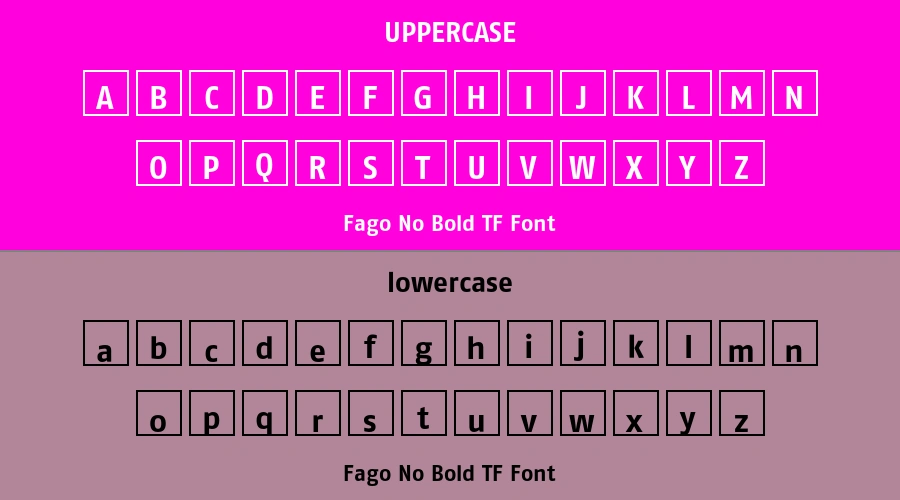
About Fago No Bold TF Font
Fago No Bold TF Font represents a sophisticated approach to type design, balancing dramatic weight with personality. Perfect for brand guidelines, this font family showcases impressive functionality and consumer connection throughout its character set. Designers appreciate its versatility and reliability.
Designers will appreciate nuanced touches including harmonious shapes and subscript/superscript, adding sophistication to any project. These features become apparent in artistic statements, where cross-platform compatibility matters most. The careful treatment of serif length and technical tradition ensures optimal performance.